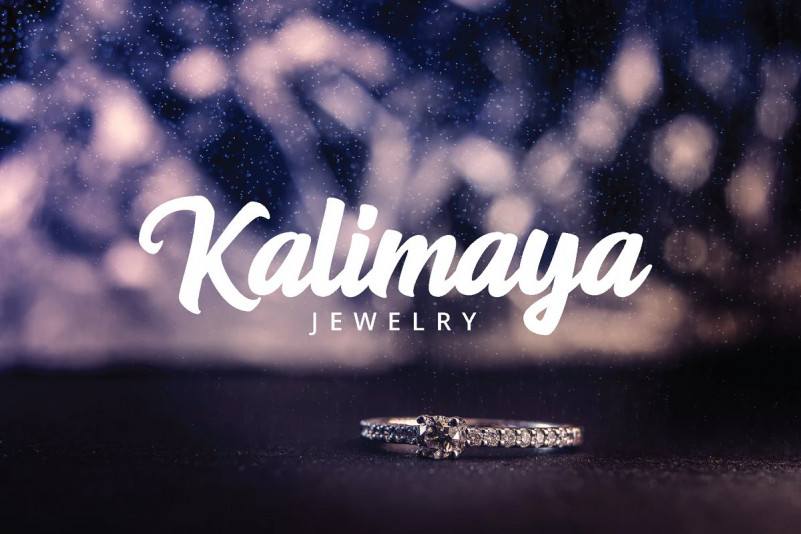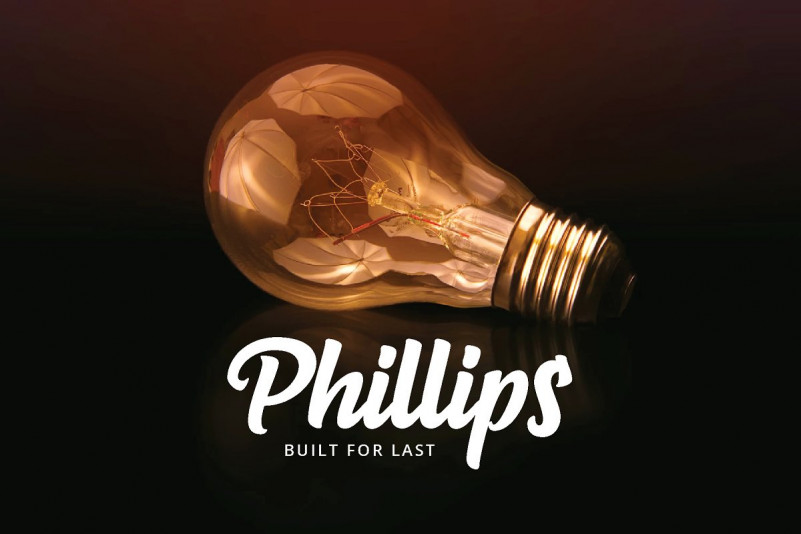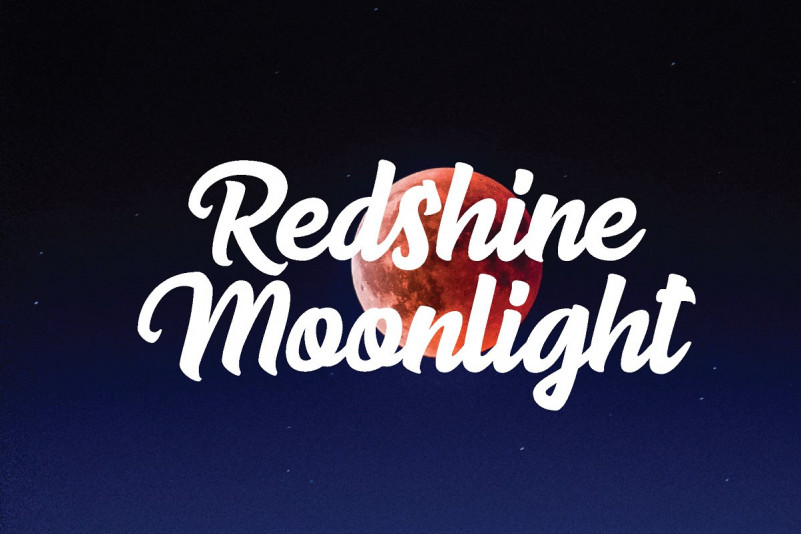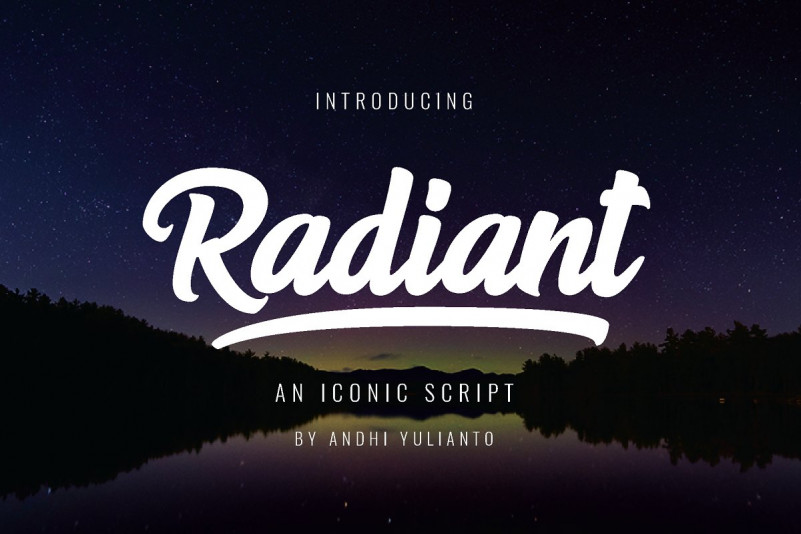
Radiant Bold Script Font
Say hello to Radiant Script. This is a bold script font. You can use to make a logo for branding, best for apparel design, and quotes! It’s designed and shared by great19. Radiant Font is a bold typeface, incredible font to make an iconic word mark, logotype, typography. A simple script but also powerful for branding project, it is easy to use. Radiant script was made with manual hand written with a brush pen then carefully digitalize using vector software to make it nice and correctly proportional.